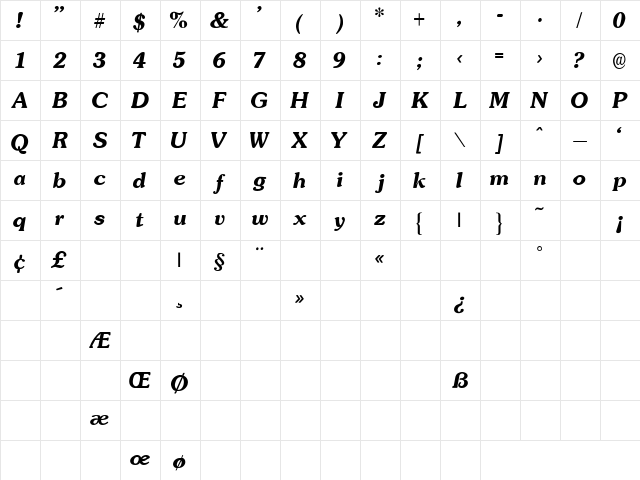
PP-Souvenir Semi Bold-Italic
Design Context for PP-Souvenir Typeface
PP-Souvenir takes a measured approach to typography — its balanced proportions and neutral character make it a reliable workhorse for both digital and print work. The slanted form adds forward momentum and visual energy. The heavy weight commands attention and anchors typographic hierarchies.
Pro Tip: Try PP-Souvenir for annotation and caption copy alongside an upright companion — the contrast in angle creates a dynamic but ordered typographic system.